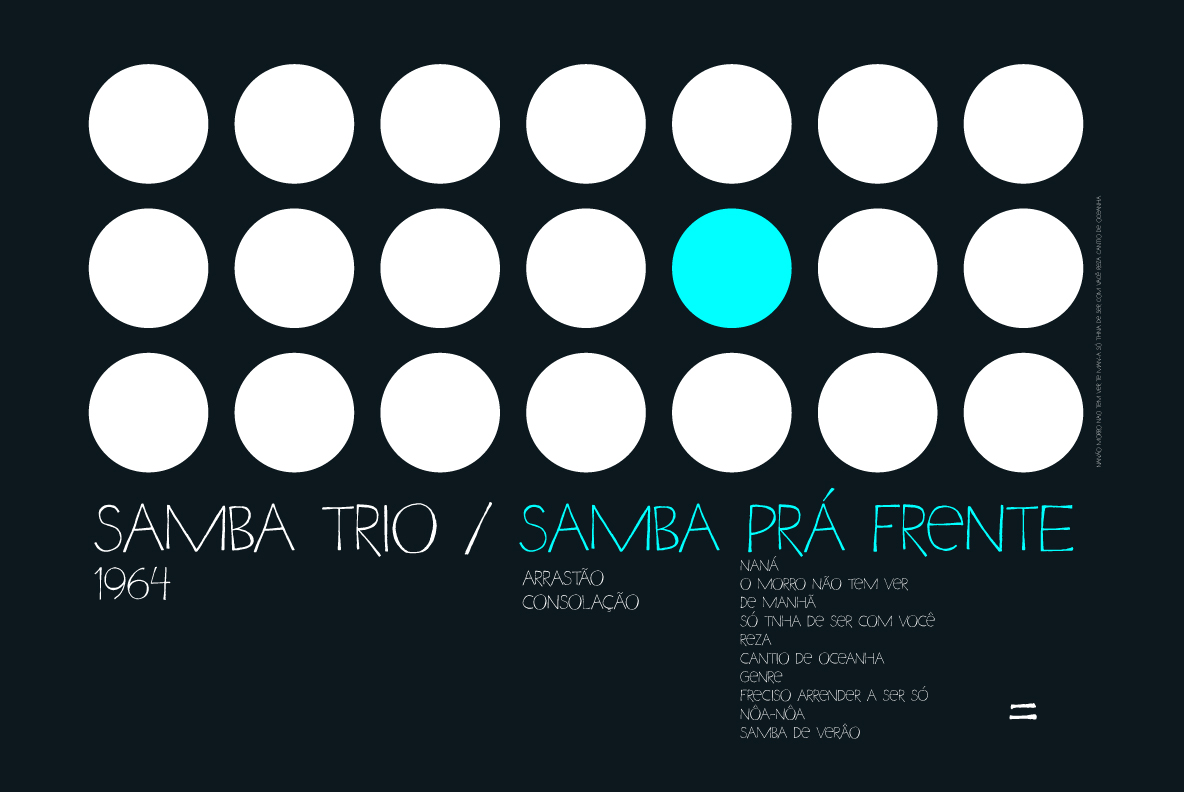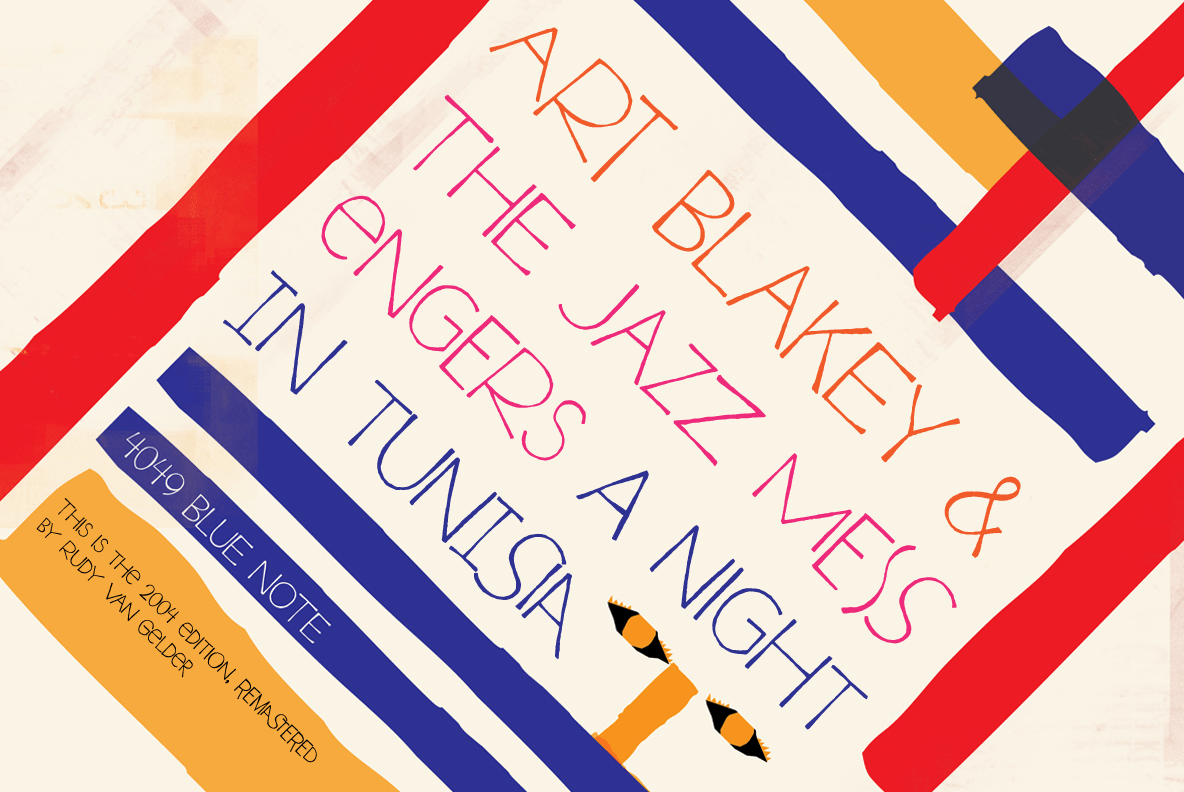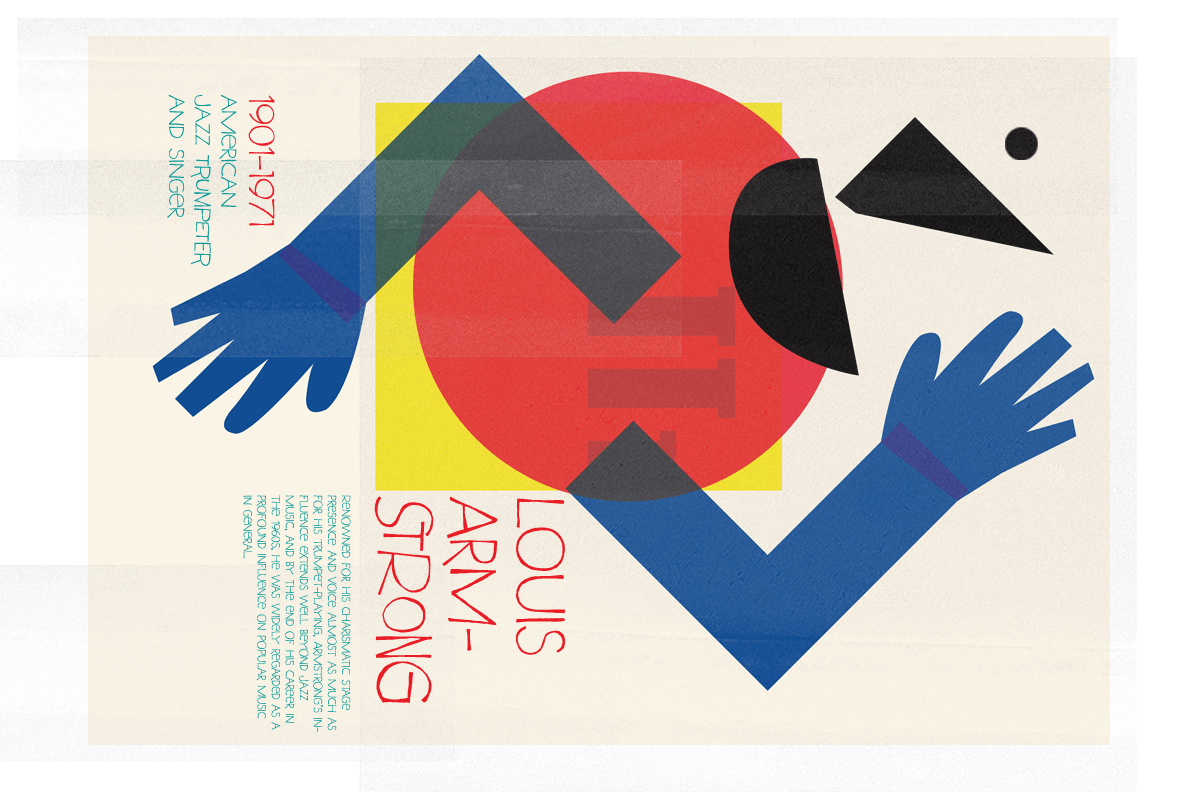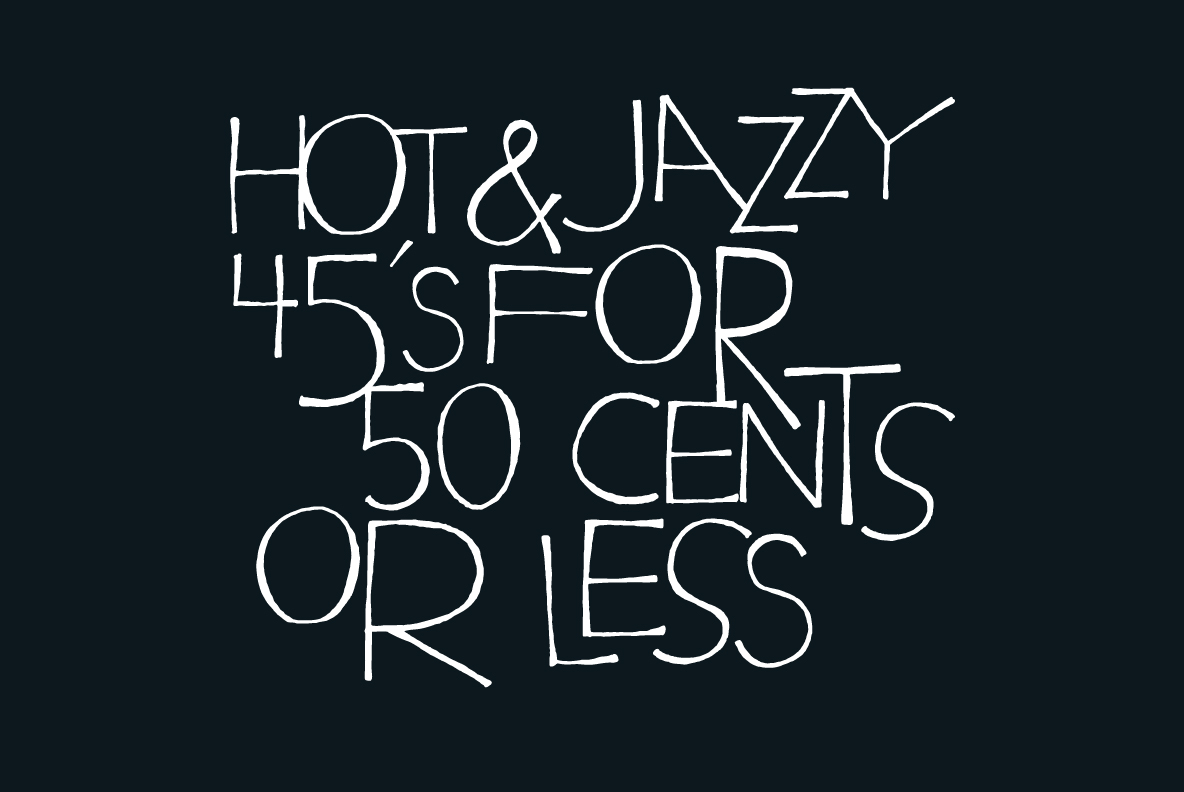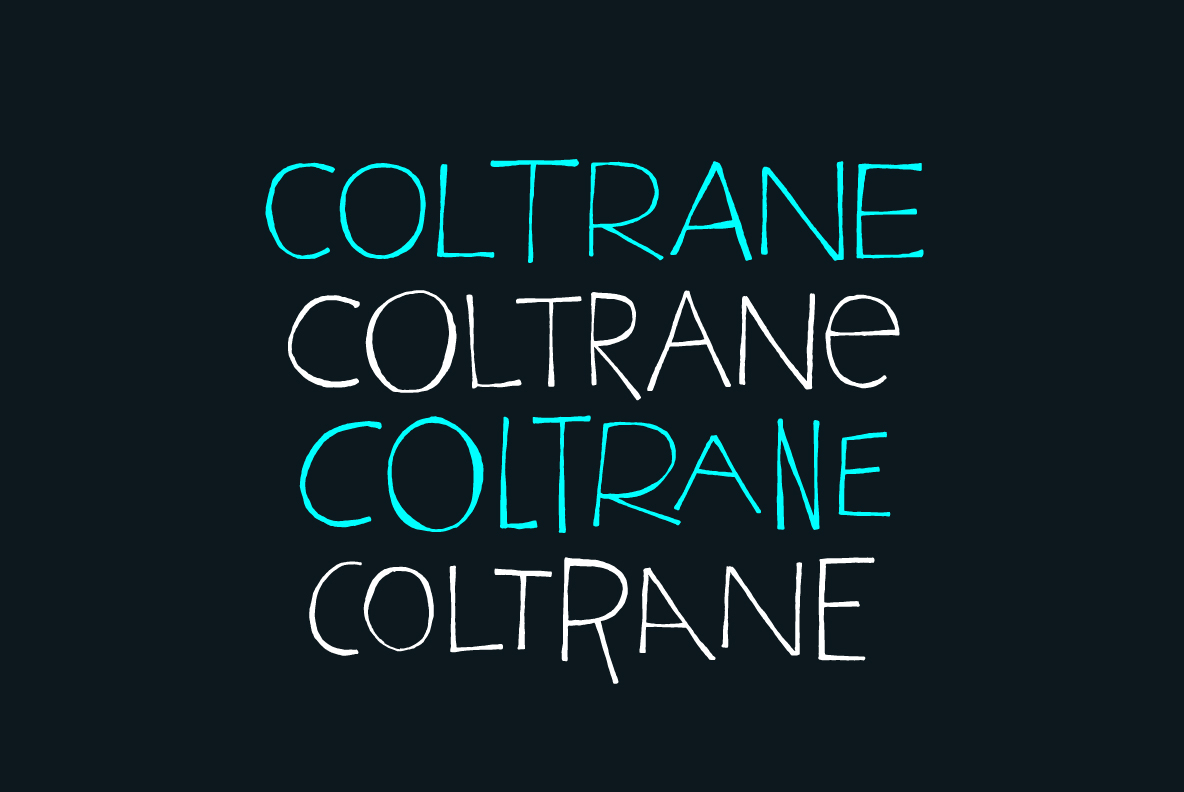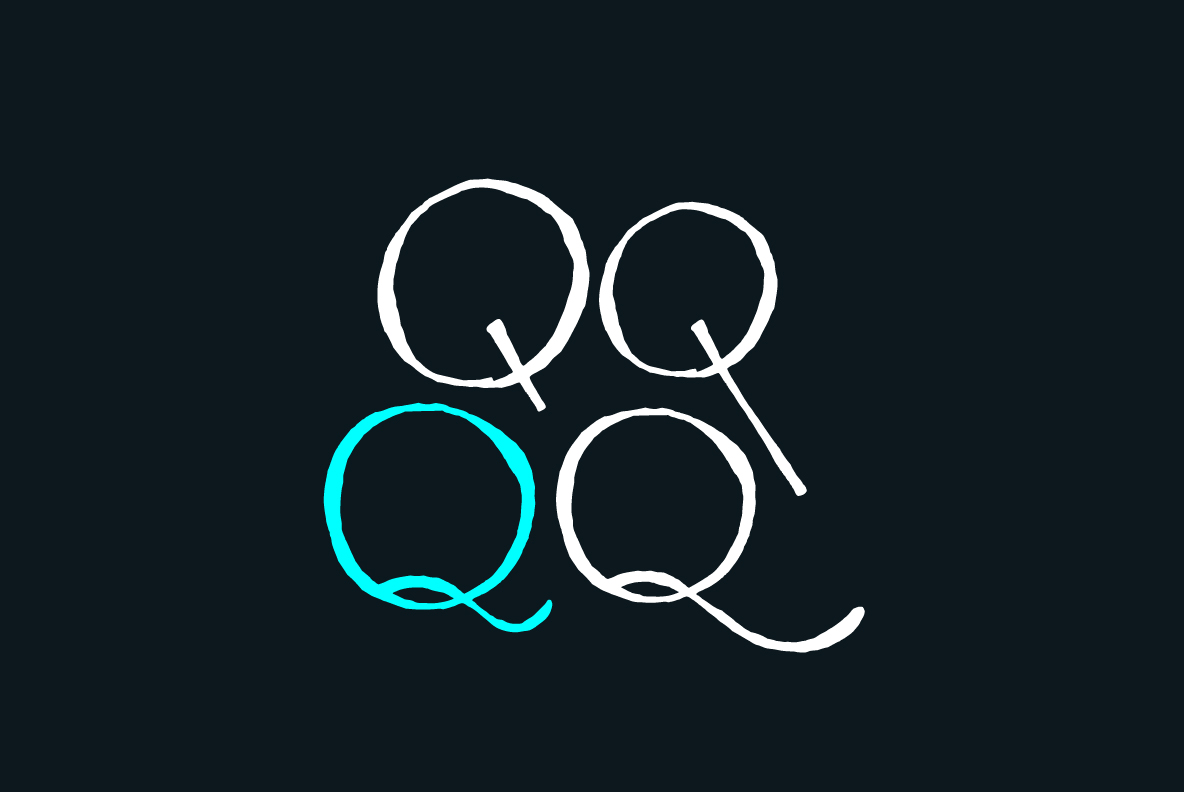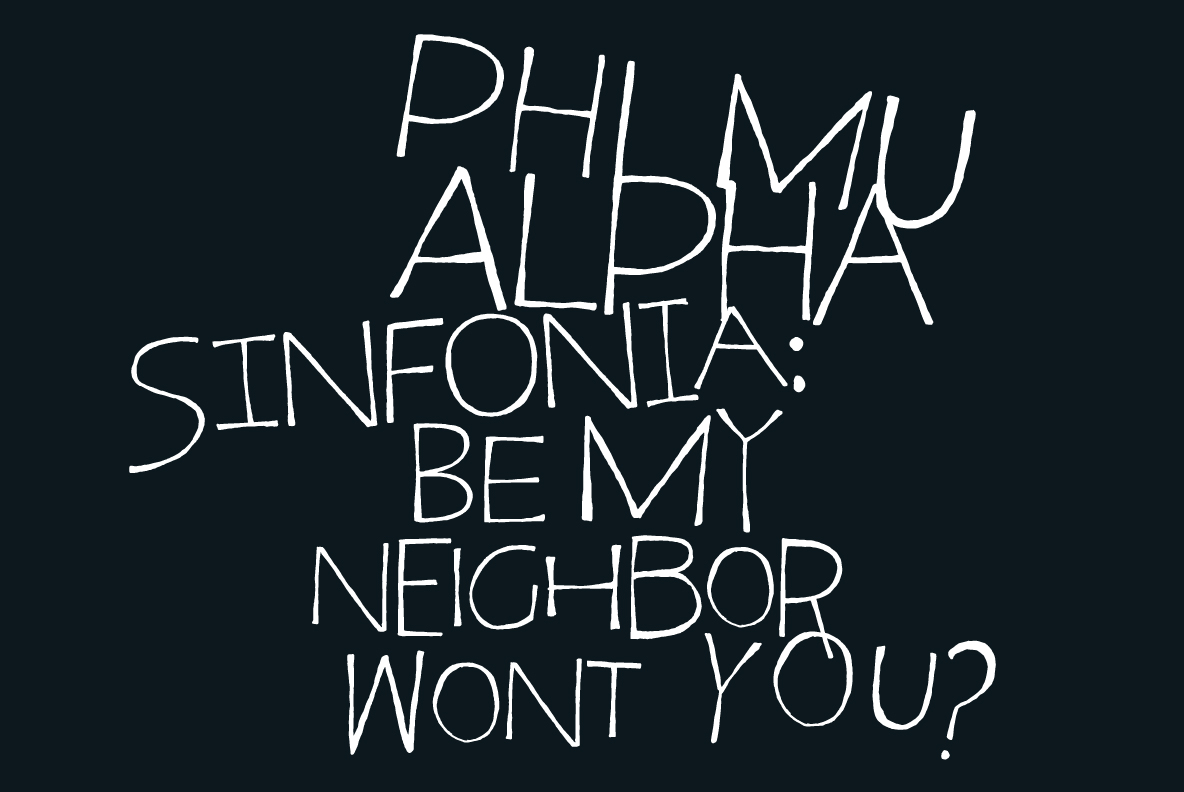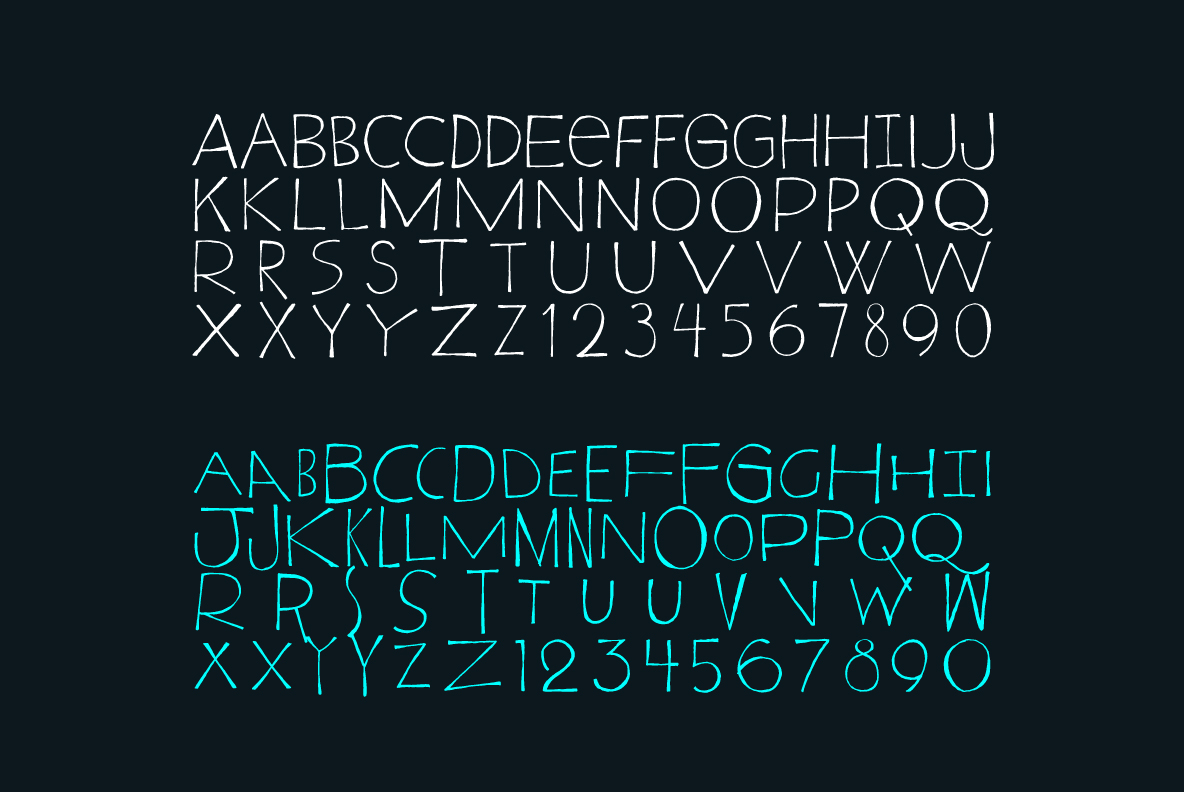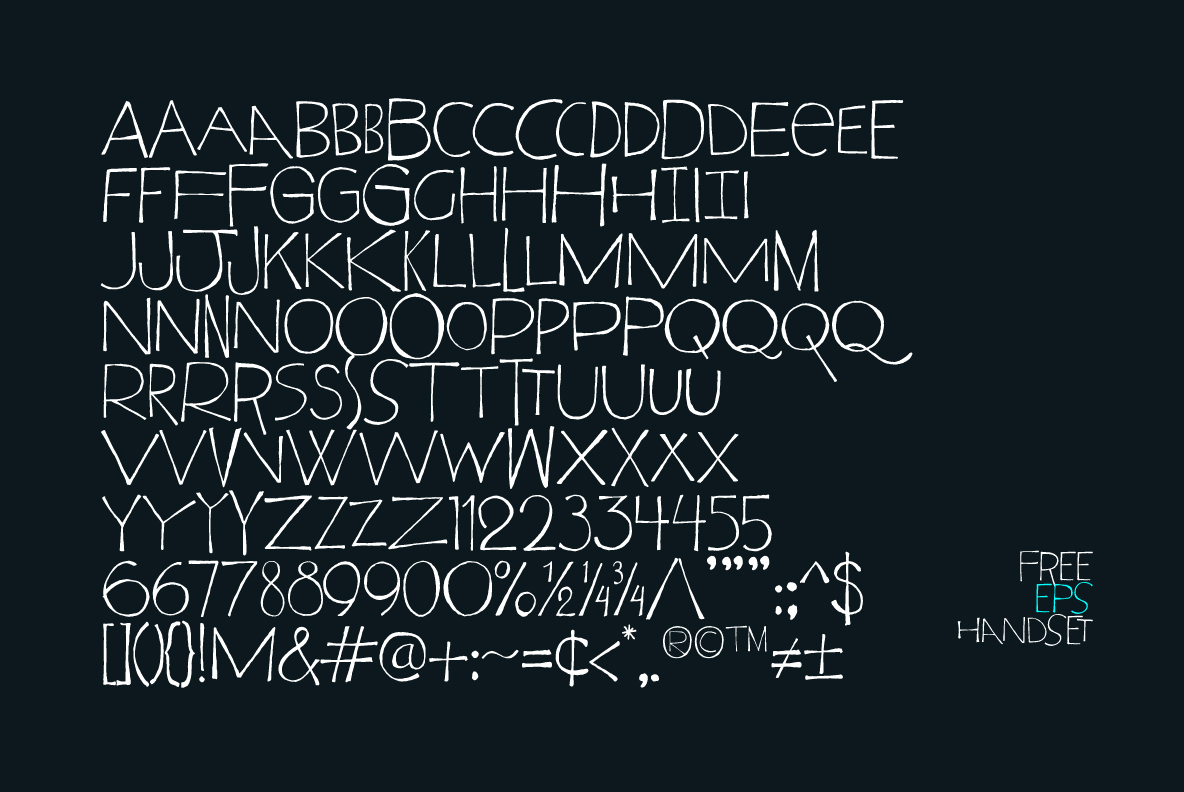
YWFT Coltrane
Inspired not by John, but rather his wife Alice, YWFT Coltrane strives to achieve Universal Consciousness through the jump out of Detroit and the piano ladder up to the ashram. Go drop the needle on the record of the same name while gazing deep at these letters--soul mates without a doubt. It might take a moment, and maybe some mood lighting, but you should see what we're talking about without having to change your name to Turiyasangitananda. Originally a handset font (named for another jazz great, Cannonball Adderley), it made its way through the Vedantic pathways to reincarnation as YWFT Coltrane in glorious Opentype, and we've been generous with 291 glyphs and all the fancy features thereto. Style and grace from inner space. Astral motion by the ocean and a magic tune on the moon. This font works well in culture, fashion and all of that next-level stuff you saw in those magazines at the coffeehouse. Designed by YouWorkForThem.
Bonus: Includes a FREE handset design containing dozens of extra letters in EPS vector format, originally sold as YWFT Adderley.